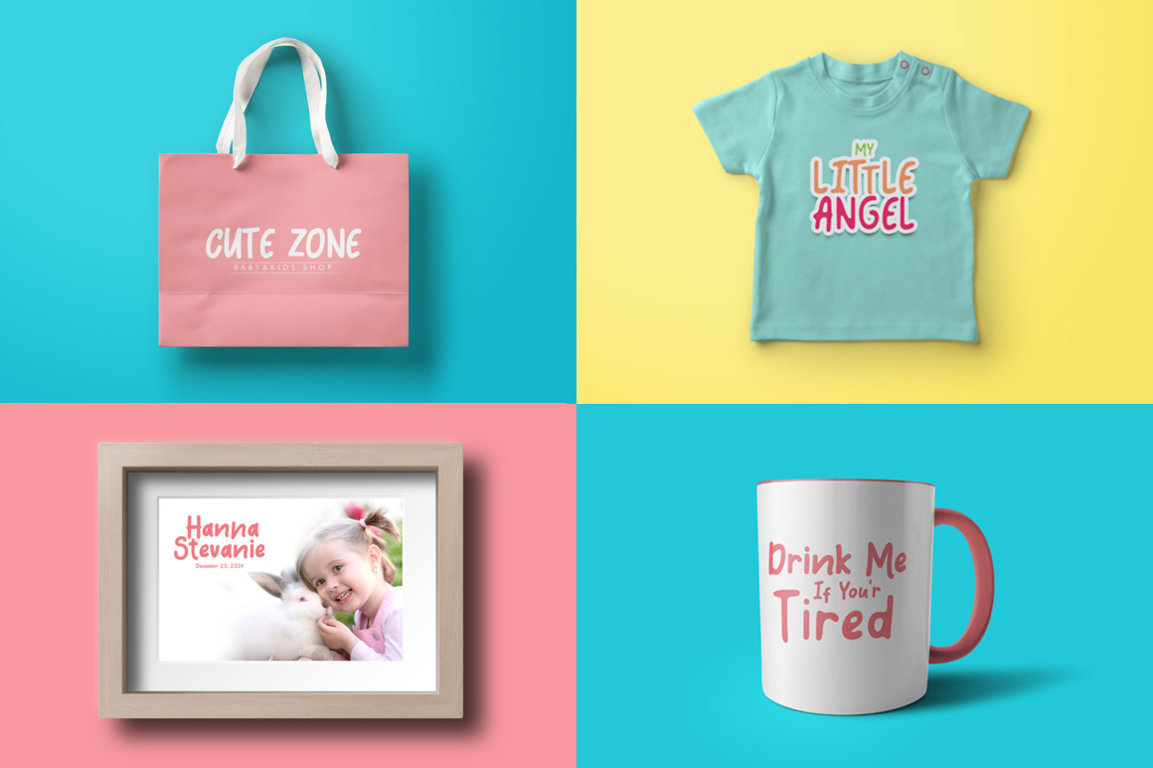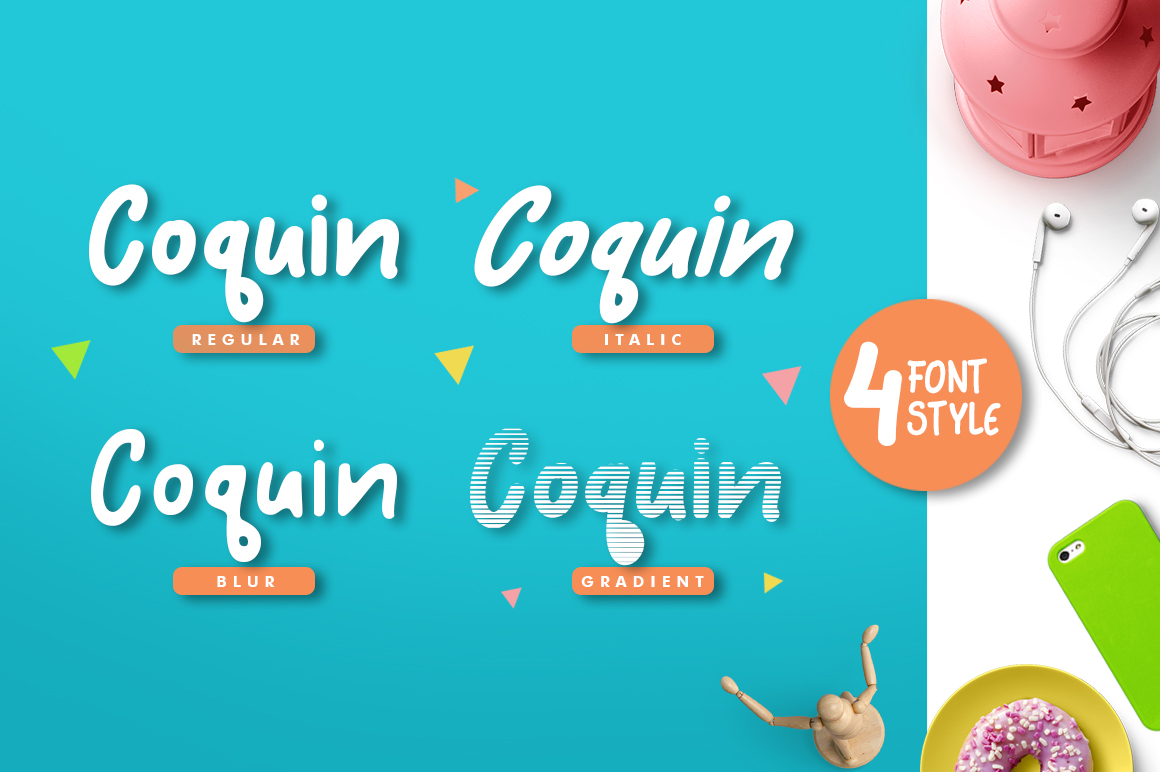
Introduction to Coquin Font
Inspired from handwriting created by the strokes of a bold marker, Coquin is an amazingly cute font.
Suitable to a large range of bright and fun designs, Coquin is definitely go-to decorative font .
Key Features of Coquin Font